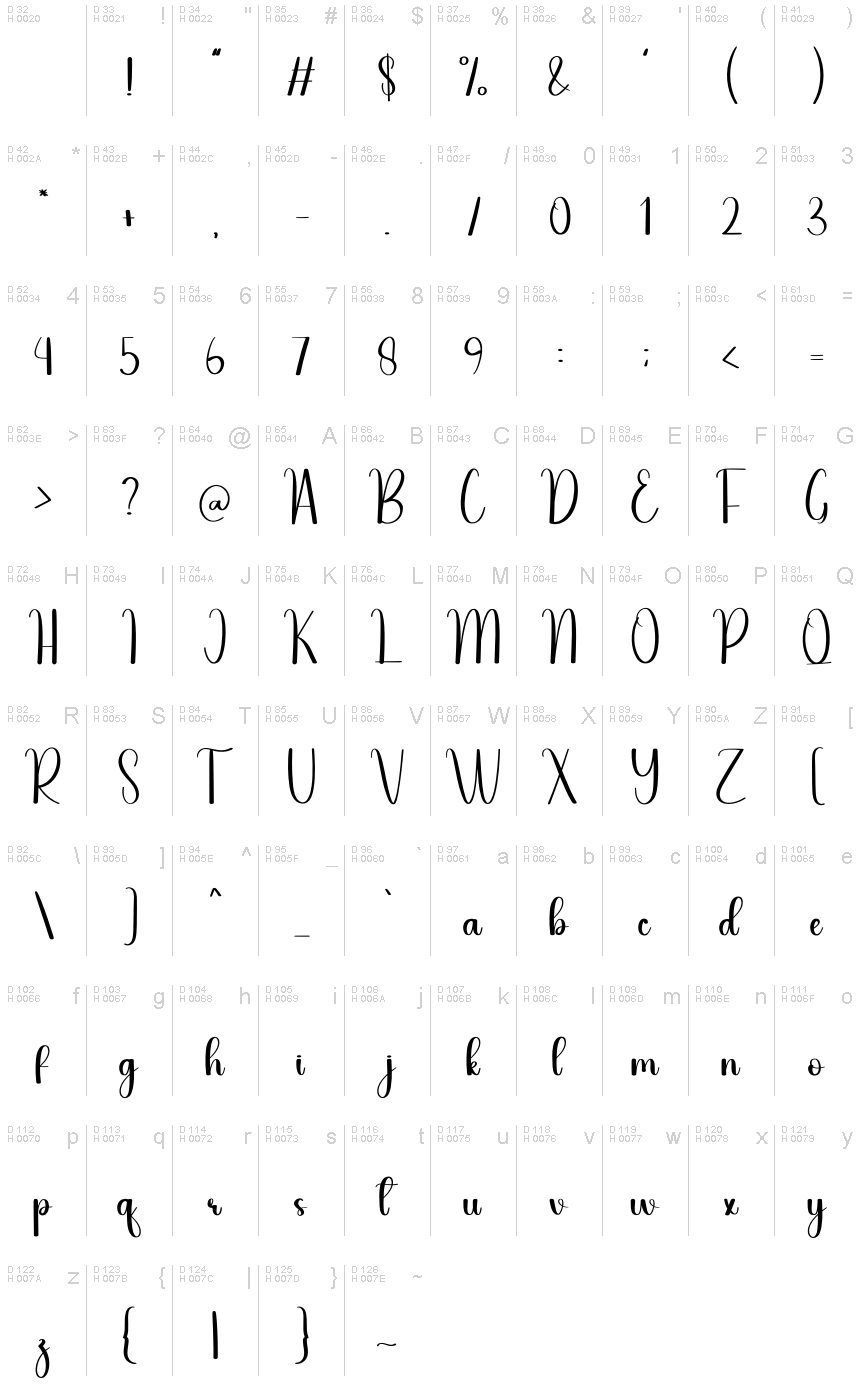
Calendar
Calendar, designed by Scratchones, is a font that exudes a personal touch with its handwritten style, bringing warmth and authenticity to any project. Its condensed letters weave together in a dance of elegant curves and flowing lines, giving it a cohesive and intimate feel. The font's charm lies in its ability to mimic the nuanced imperfections of human handwriting while maintaining legibility and grace.
Perfect for invitations, branding, or artisanal product packaging, Calendar invites a sense of craftsmanship and individuality. It resonates particularly well in designs that aim to convey intimacy or require an approachable yet stylish typographic element.